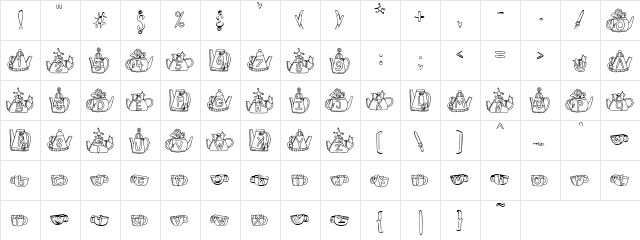
PC Tea Cup Party Regular
Design Context for PC Tea Cup Party Typeface
PC Tea Cup Party is a composed and adaptable typeface that performs quietly and consistently across a wide range of design contexts.